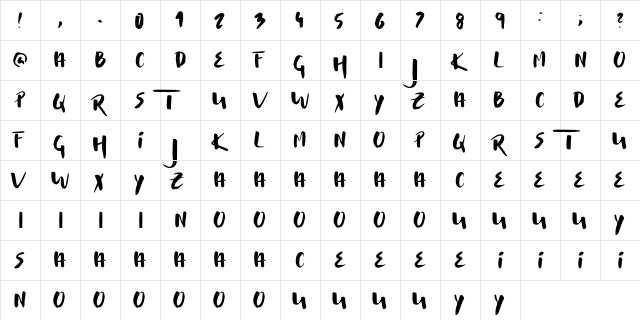
Musterion Regular
Design Context for Musterion Typeface
Musterion is a composed and adaptable typeface that performs quietly and consistently across a wide range of design contexts.